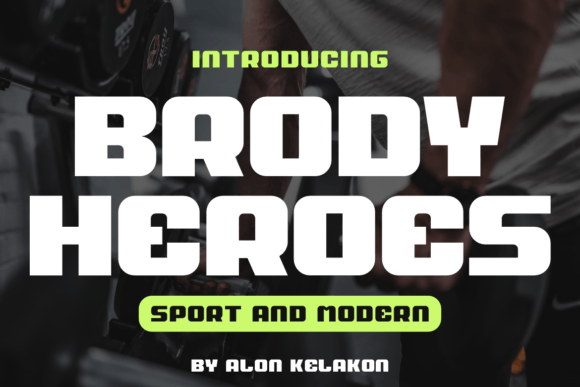
The Ultimate Design Powerhouse: Brody Heroes Font
I’ll never forget the time I was working on a project for a client who needed a bold, eye-catching font to make their brand stand out. I spent hours scouring the internet for the perfect one, but nothing seemed quite right. That was until I stumbled upon Brody Heroes Font. This bold and assertive sans serif font has been a game-changer for my design work, and I’m excited to share its awesomeness with you! 😊
An Honest Review of Brody Heroes Font
- ✅ Versatility: No matter the topic or project, Brody Heroes Font seems to fit right in. Whether I’m working on a serious business design or a fun craft project, this font elevates my creations.
- ✅ Readability: The bold and clear design makes it easy to read, even in smaller sizes.
- ✅ Personality: Brody Heroes Font has a unique personality that adds a touch of confidence and assertiveness to any design.
- ⚠️ Limited use in body text: While Brody Heroes Font is amazing for headings and titles, it might not be the best choice for longer body text due to its bold nature.
- ⚠️ Careful pairing required: Because of its strong personality, Brody Heroes Font needs to be paired thoughtfully with other fonts to avoid overwhelming the design.
- Experiment with OpenType features like glyphs and stylistic alternates to add some extra flair to your text.
The Designer Inspiration Behind Brody Heroes Font
Brody Heroes Font was designed with the goal of creating a bold and assertive sans serif font that could be used across various design projects. The designer aimed to craft a font that exudes confidence and strength, making it perfect for headings, titles, and any design that needs a powerful punch.
Q: What makes Brody Heroes Font unique?
A: Brody Heroes Font stands out due to its bold and assertive design, making it perfect for adding a strong personality to your designs.
Q: Is Brody Heroes Font suitable for body text?
A: While it’s not ideal for longer body text due to its bold nature, Brody Heroes Font can be used for shorter paragraphs or as an accent font.